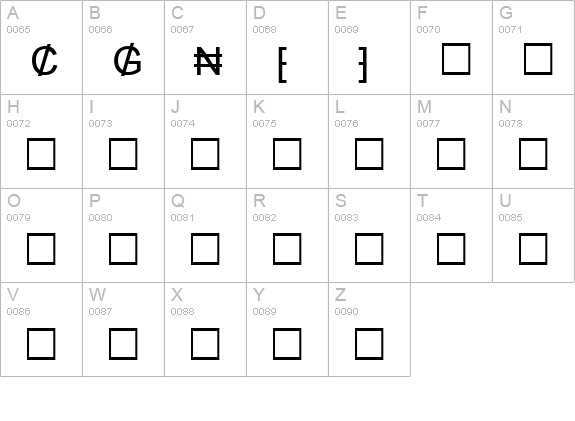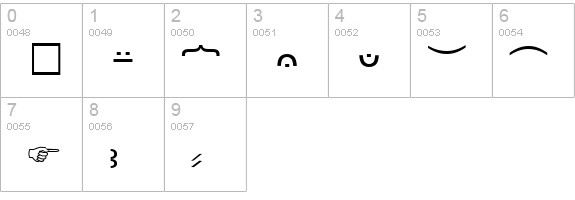
TWA Others Font Details
Introducing TWA Others font - a stunning display typeface that effortlessly combines elegance and edginess. This font is bound to make a lasting impression with its unique and eye-catching design. TWA Others font is perfect for a wide range of projects, from branding and logos to headlines and titles. Its bold and distinctive letterforms capture attention and add a touch of sophistication to any design. Whether you're creating a modern advertisement, a sleek website, or even a striking poster, TWA Others font is sure to elevate your work to new heights. One of the best things about TWA Others font is that it is completely free! That's right - you can download this incredible font without spending a dime. Just head over to FontsMarket.com and you'll find TWA Others font ready to be added to your font library. With its versatility and free availability, TWA Others font is the perfect choice for both personal and commercial projects. From designers and artists to entrepreneurs and small business owners, everyone can benefit from the bold and captivating presence that TWA Others font brings to the table. Don't miss out on the opportunity to enhance your designs with TWA Others font. Download it today from FontsMarket.com and let your creativity soar to new heights.